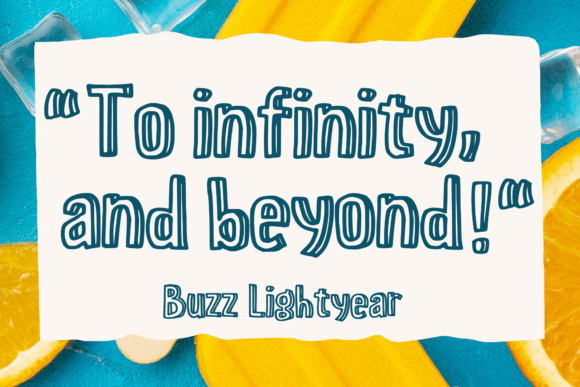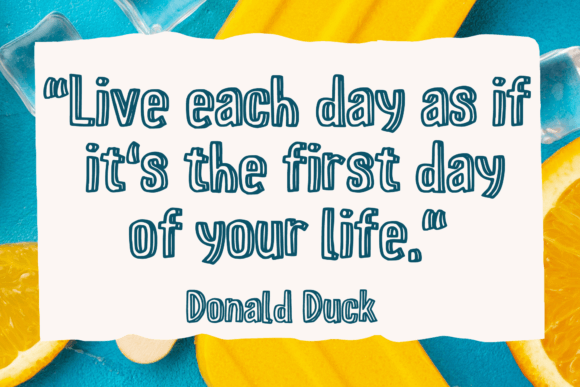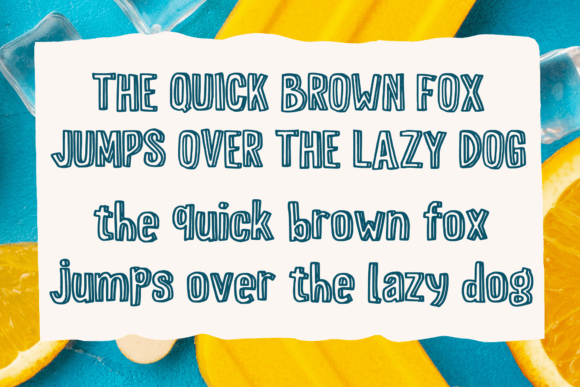
Introduction to Popsicle Font
Do you remember the excitement of creating with crayons and markers as a child? The freedom to express yourself without a care in the world was exhilarating. That same sense of creativity can be rekindled with the right design resources. One such treasure is the Popsicle Font, a funky and sketchy display font that’s sure to bring a smile to your face.
As a designer, you’re always on the lookout for high-quality design resources that can elevate your creative projects. The Popsicle Font is a valuable addition to your toolkit, offering a unique and versatile style that’s perfect for anything from t-shirts and stickers to greeting cards and posters.
Popsicle Font
- High-quality, unique design ideal for creative projects, with a transparent background for versatility.
- Features a bold, playful style with intricate details, perfect for adding a fun touch to designs.
- Designed to be highly legible, making it suitable for use in a variety of contexts, from signage to digital graphics.
Honest Review: Popsicle Font
I recently stumbled upon the Popsicle Font while searching for a fun design resource for a creative project. As a designer, I’m always on the lookout for high-quality fonts that can elevate my work.
Here are some things that I love about the Popsicle Font:
- ✨ Unique and playful style that adds a touch of whimsy to any design
- ✨ Clear and easy-to-read letters, making it perfect for both digital and print projects
- ✨ Includes a transparent background, which is super convenient for designing on different backgrounds
- ⚠️ Limited character set, which may not be ideal for projects that require a wide range of characters
- ⚠️ May not be suitable for formal or professional designs, due to its playful and casual nature
Overall, I’m really impressed with the Popsicle Font. It’s a great design resource for anyone looking to add a bit of fun and personality to their creative projects. While it may have some limitations, I think it’s well worth downloading and experimenting with.
Using Popsicle Font in Creative Projects
Popsicle Font is a versatile design resource that can be used in a variety of creative projects. It’s perfect for adding a touch of whimsy and fun to your designs. You can use it in Canva, Adobe Photoshop/Illustrator, or PowerPoint/Word to create stunning visual effects.
Popsicle Font is a versatile design resource that can be used in a variety of creative projects, including:
- Birthday party invitations and decorations.
- Summer-themed posters and flyers.
- Children’s book illustrations and designs.